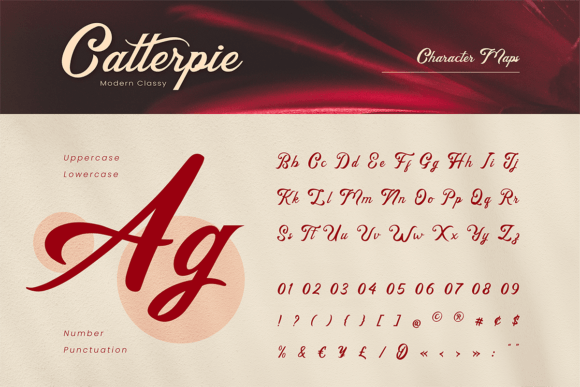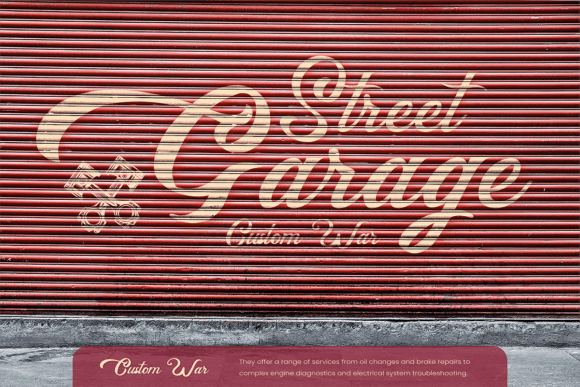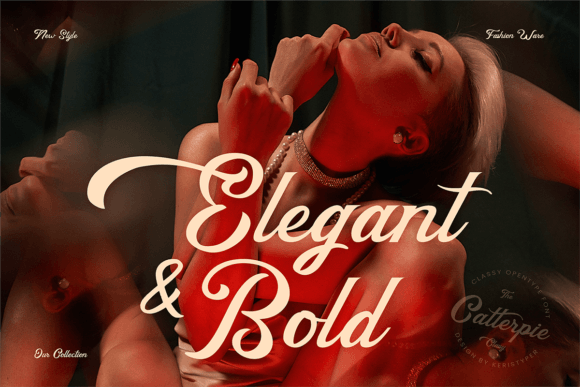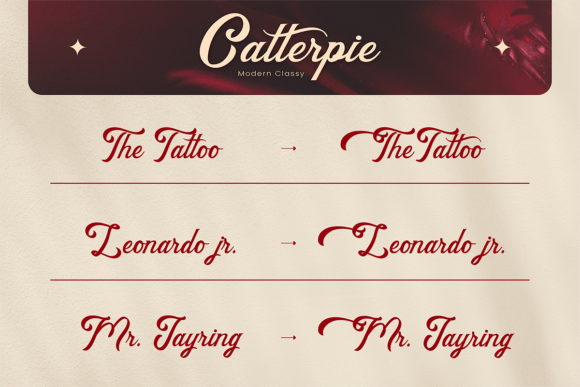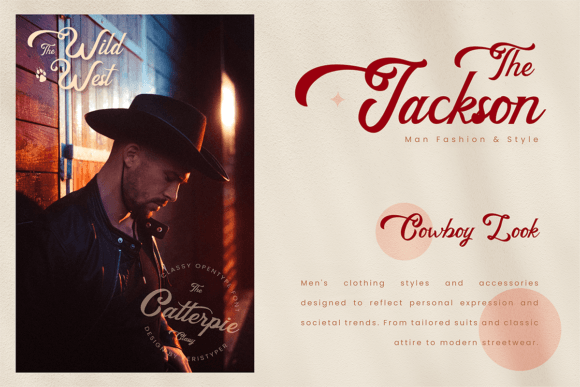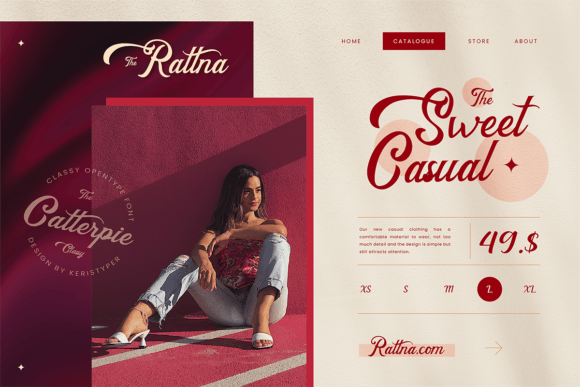
Introduction to Catterpie Font
Have you ever been stuck in front of your computer, trying to find the perfect font to elevate your creative project? The search can be overwhelming, especially when you’re working on a high-stakes design, like a wedding invitation or a business logo. But what if I told you that you’ve stumbled upon the perfect solution?
Catterpie Font is here to save the day with its stunning script design that adds a touch of elegance to any project. Whether you’re a seasoned designer or a hobbyist, this versatile font is sure to impress. With its beautiful curves and subtle flair, Catterpie Font is perfect for adding a customized touch to your designs.
What sets Catterpie Font apart is its high-quality design, available for free download with a transparent background. This makes it an invaluable resource for designers looking to add a professional touch to their creative projects.
Key Features of Catterpie Font
- Unique, whimsical design with a transparent background, ideal for creative projects requiring a playful touch.
- Designed with a wide range of creative uses in mind, from digital art to print materials, and web design.
- Perfect for adding a touch of personality to any design project, with its distinctive, catterpie-inspired style.
Honest Review: Catterpie Font
I recently had the chance to use the Catterpie Font in one of my creative projects, and I was impressed by its unique style and versatility. As a designer, I appreciate high-quality design resources that can elevate my work, and the Catterpie Font certainly delivers.
- ✨ The font has a transparent background, making it easy to use in various design scenarios.
- ✨ The font is highly customizable, allowing me to adjust its style and layout to suit my project’s needs.
- ⚠️ The font may not be suitable for very large-scale projects, as it can be quite heavy and overwhelming.
- ⚠️ The font’s unique style may not be to every designer’s taste, so it’s essential to test it in different contexts before committing to a project.
Overall, I’m impressed with the Catterpie Font, and I would recommend it to designers working on creative projects that require a high-quality, unique font. With its transparent background, free download, and customization options, it’s a valuable addition to any design resource library.
Experiment with different font sizes and colors to create visually appealing text elements. You can also use the font in combination with other design elements to create a unique look.
Catterpie Font is ideal for use in creative projects, such as logo designs, social media graphics, and marketing materials. Its high quality and transparent background make it a versatile design resource for a variety of applications.